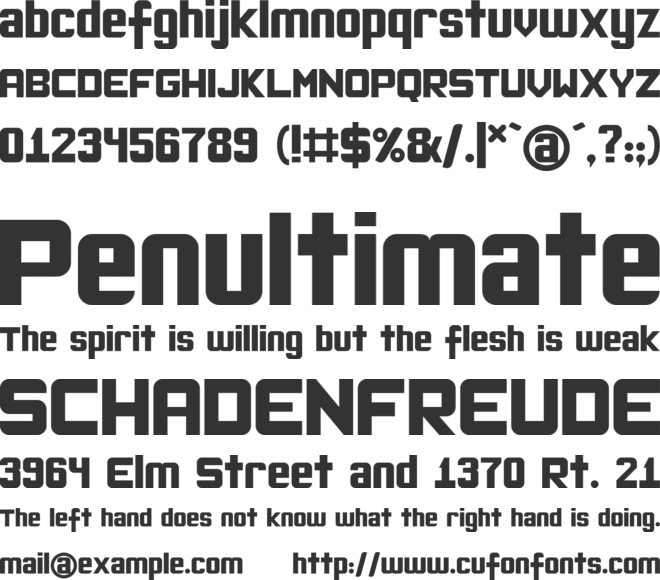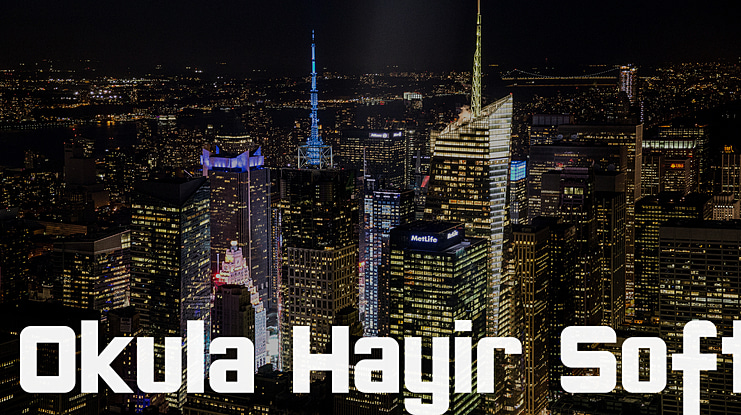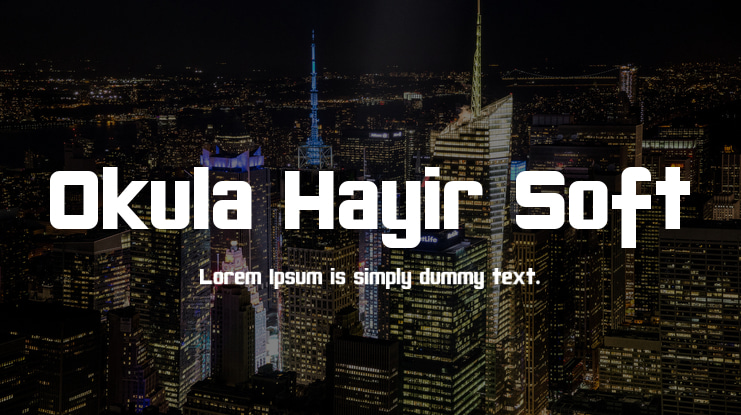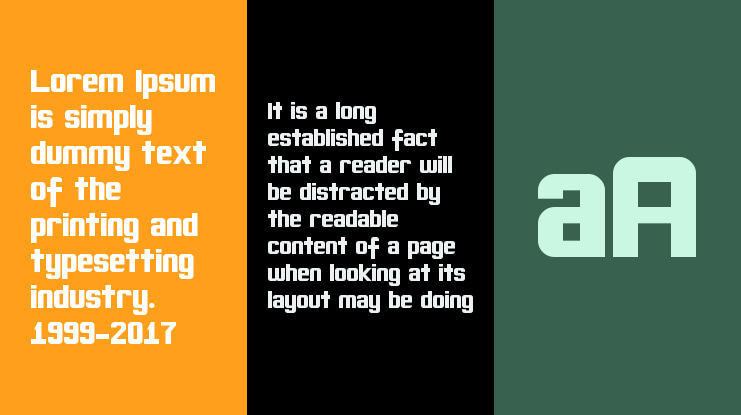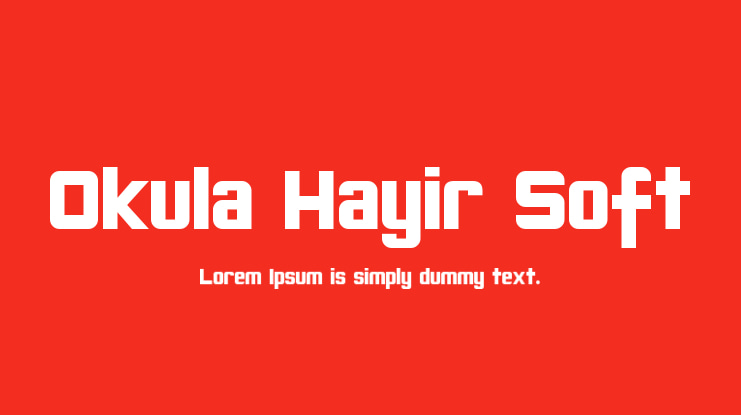
Okula Hayir Soft Font
My first work was the sturdy octagonal typeface "Okula Hayır" https://okulahayir.tumblr.com/ web font that I was inspired by bricks. This my third typeface. I modified and rounded this font and it becomes "Okula Hayır Soft" much better much softer much usable I think.